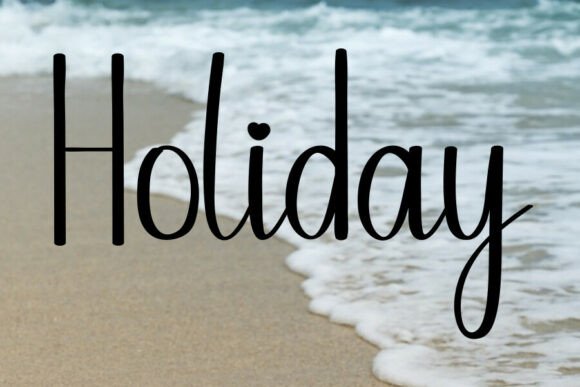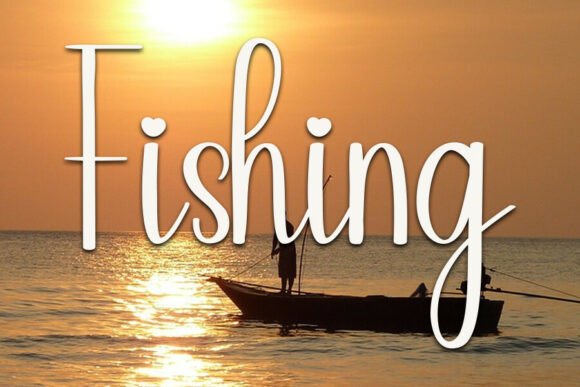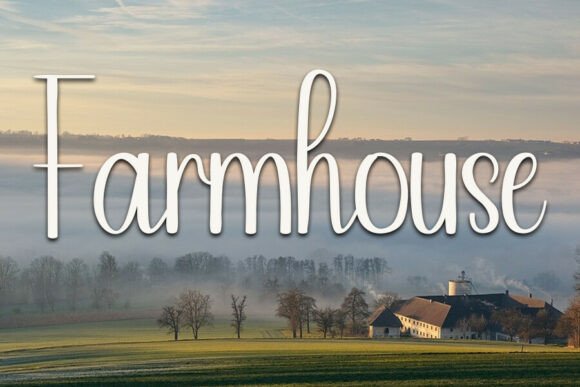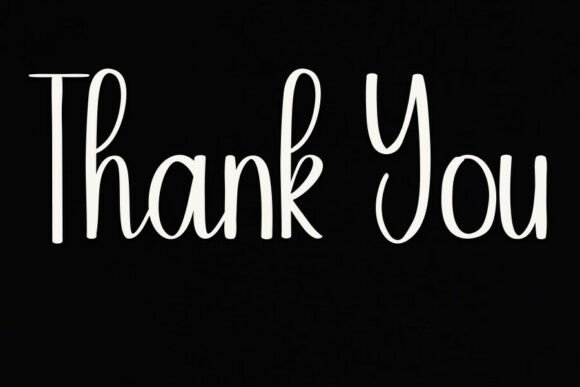
The Elegance of Calligraphy Font: A Designer’s Delight
I still remember the project that made me fall in love with the Calligraphy Font. I was working on a wedding invitation design, and my client wanted something that exuded elegance and sophistication. After hours of scouring font libraries and trying out different combinations, I stumbled upon Calligraphy Font. Its fluid brush strokes and dynamic curves instantly captured the essence of what I was looking for. It was like the design fell into place, and I knew I had found the perfect fit.
- ✨ Fluid brush strokes that give it a hand-painted feel
- ✅ Dynamic curves and expressive letterforms that add a touch of elegance
- 🌈 Versatile and suitable for various design projects, from logos to social media graphics
- 💫 Perfect for adding a creative and sophisticated touch to any design
While Calligraphy Font is an excellent choice for many design projects, there are a few things to keep in mind:
- ⚠️ It can be a bit challenging to read in small sizes, so it’s best used for headlines or titles.
- 🤔 Some of the more intricate letterforms may not display well on certain devices or browsers, so it’s essential to test it thoroughly.
The Designer Inspiration Behind Calligraphy Font
Calligraphy Font was inspired by the art of traditional calligraphy, with a modern twist. The designer aimed to capture the essence of hand-painted calligraphy and make it accessible to a wider audience. The result is a font that’s both elegant and versatile, perfect for a variety of design projects.
Q: What is Calligraphy Font?
A: Calligraphy Font is a stylish script font that features fluid brush strokes, dynamic curves, and expressive letterforms.
Q: Is Calligraphy Font suitable for body text?
A: While Calligraphy Font is beautiful, it’s best used for headlines or titles. It can be challenging to read in small sizes, so it’s not ideal for body text.